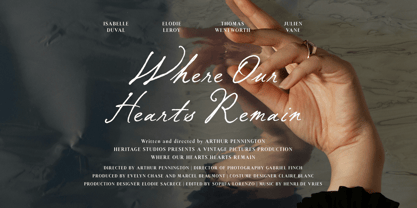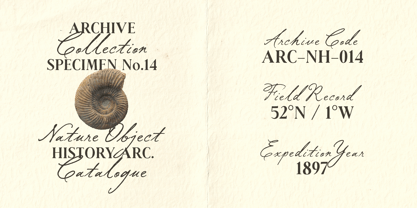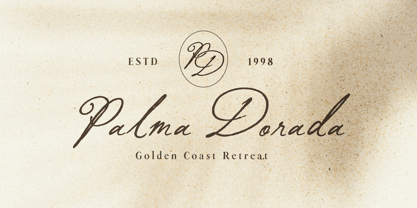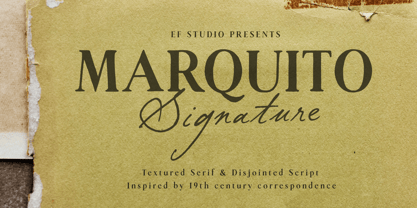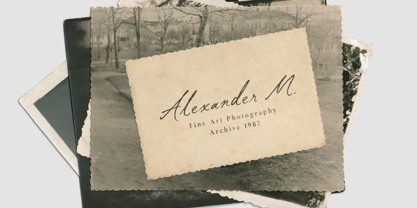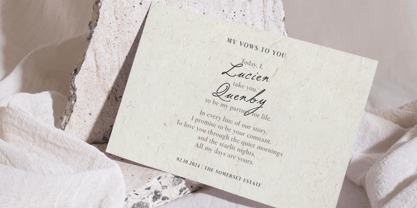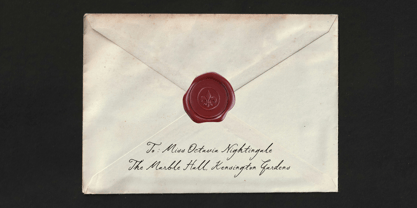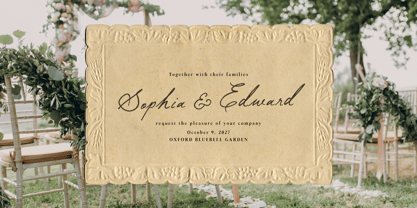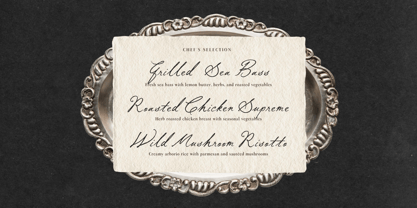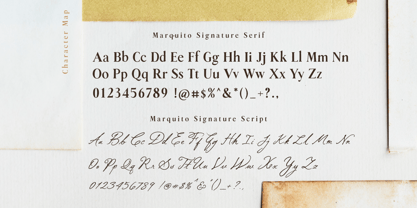
Marquito Signature
by Ef Studio
The Marquito Signature Font Family was designed by Luthfi Fauzi and published by Ef Studio. Marquito Signature contains 2 styles and family package options. More about this family
Marquito Signature is an elegant typeface that blends a textured serif with a refined disjointed script, inspired by the charm and character of 19th century correspondence. The pairing creates a graceful balance between structure and expression, bringing together the sophistication of classic typography with the warmth of handwritten forms. Designed with a vintage sensibility in mind, Marquito Signature evokes the timeless elegance of old letters, heritage branding, and editorial design. Its distinctive personality makes it ideal for projects that seek a refined, nostalgic atmosphere while remaining versatile and modern in use. From luxury branding to wedding stationery, from boutique hospitality to editorial layouts, Marquito Signature adds a touch of quiet sophistication and character to every design. Perfect for: Luxury branding Wedding invitations & stationery Editorial layouts Boutique hotel & hospitality branding Restaurant menus Packaging design Photography branding Signature logos Features: Uppercase & lowercase characters Numbers & punctuation Multilingual support
Designers: Luthfi Fauzi
Foundry: Ef Studio